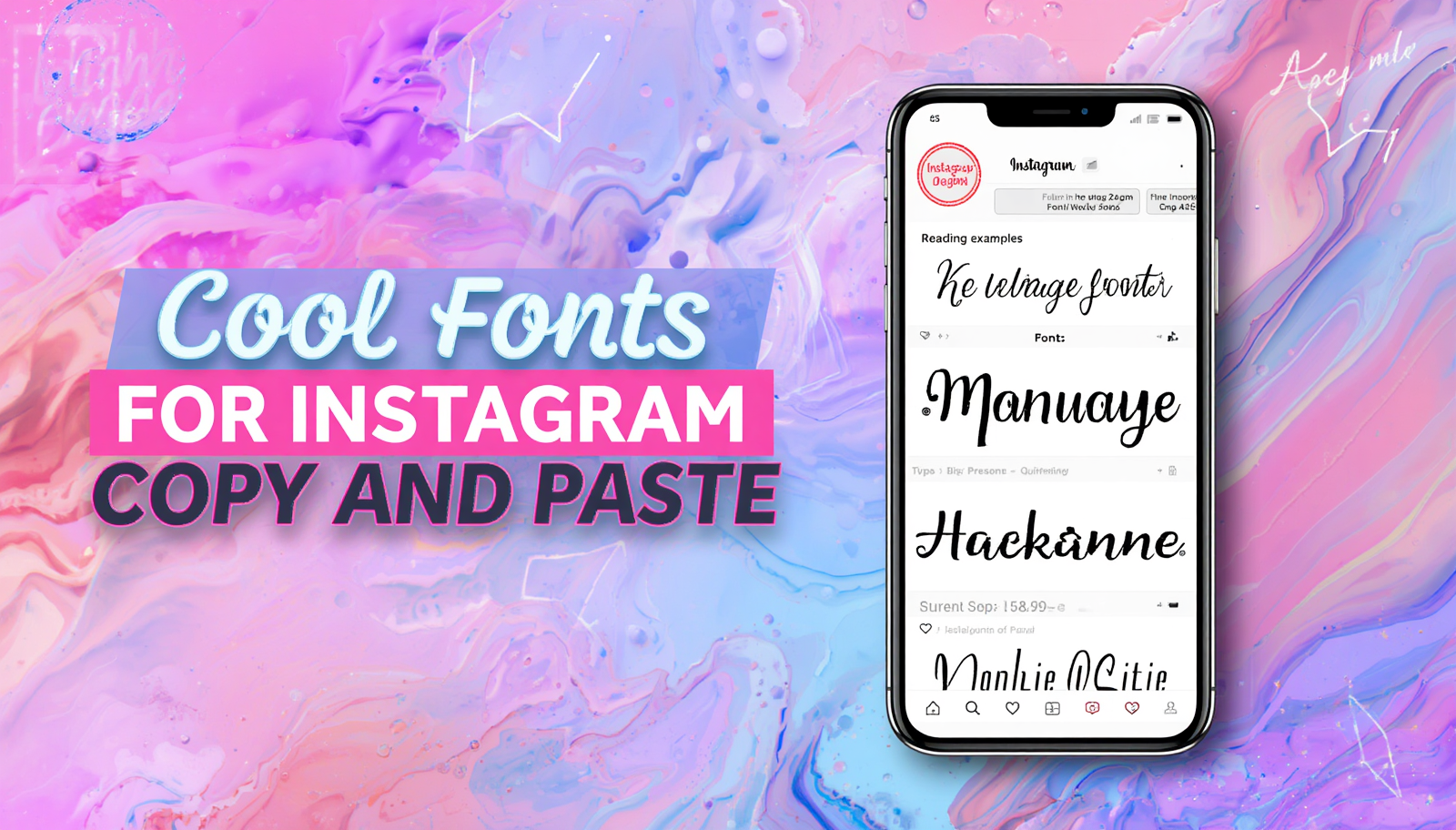
Cool Fonts for Instagram Copy and Paste (100+ Stylish Fonts)
Cool Fonts for Instagram Copy and Paste are one of the easiest ways to make your Instagram profile stand out. Whether you want a stylish Instagram bio, a unique username, or eye-catching captions, cool fonts can help you create a more attractive profile.
Instagram is one of the most popular social media platforms in the world. Millions of users compete for attention every day. Using stylish text can make your profile look more creative and professional without requiring any special design skills.
With a Cool Font Generator, you can instantly convert normal text into stylish font styles that can be copied and pasted directly into Instagram. These fonts work for usernames, bios, captions, comments, and even story text.
If you are looking for the best cool fonts for Instagram copy and paste, this guide will show you how they work, where to use them, and provide plenty of examples.
What Are Cool Fonts for Instagram?
Cool fonts are special Unicode characters that look different from normal text. Instead of changing the actual Instagram font, they create stylish text styles that can be copied and pasted into your profile.
For example:
Normal Text:
Instagram
Cool Font Styles:
- ๐๐ท๐ผ๐ฝ๐ช๐ฐ๐ป๐ช๐ถ
- ๐ด๐๐๐๐๐๐๐๐
- ๐๐ง๐ฌ๐ญ๐๐ ๐ซ๐๐ฆ
- ๐๐ฏ๐ด๐ต๐ข๐จ๐ณ๐ข๐ฎ
- ๐ ธ๐ ฝ๐๐๐ ฐ๐ ถ๐๐ ฐ๐ ผ
These styles make your content more noticeable and visually appealing.
Why Use Cool Fonts on Instagram?
There are many benefits to using cool fonts on Instagram.
Better Profile Appearance
Stylish fonts make your profile look modern and attractive.
Stronger Personal Branding
Influencers and content creators often use custom fonts to create a recognizable identity.
More Attention
Unique text naturally attracts attention and can encourage users to visit your profile.
Creative Expression
Fonts allow you to express your personality and style.
Popular Cool Fonts for Instagram Copy and Paste
Here are some examples you can use immediately.
Stylish Script Fonts
- ๐ ๐๐ธ๐ฟ๐ฎ ๐๐ท๐ผ๐ฝ๐ช๐ฐ๐ป๐ช๐ถ
- ๐ข๐ฝ๐๐ต๐ฒ๐ผ๐ฑ ๐๐ฒ๐ธ
- ๐๐ธ๐ธ๐ต ๐๐ธ๐ท๐ฝ๐ผ
Bold Fonts
- ๐๐ง๐ฌ๐ญ๐๐ ๐ซ๐๐ฆ
- ๐๐ญ๐ฒ๐ฅ๐ข๐ฌ๐ก ๐๐๐ฑ๐ญ
- ๐๐จ๐จ๐ฅ ๐ ๐จ๐ง๐ญ๐ฌ
Gothic Fonts
- ๐ด๐๐๐๐๐๐๐๐
- ๐ฎ๐๐๐ ๐ฑ๐๐๐๐
- ๐พ๐๐๐๐๐๐ ๐ฟ๐๐๐
Bubble Fonts
- โโโขโฃโโโกโโ
- โขโฃโจโโโขโ
- โโโโฃโข
Square Fonts
- ๐ ธ๐ ฝ๐๐๐ ฐ๐ ถ๐๐ ฐ๐ ผ
- ๐๐๐๐ ป๐ ธ๐๐ ท
- ๐ ต๐ พ๐ ฝ๐๐
Cool Fonts for Instagram Bio
Your bio is one of the best places to use stylish fonts.
Examples:
- โจ Dream Big โจ
- ๐ Travel Lover
- ๐ธ Content Creator
- ๐ก Digital Marketer
- ๐ Building My Brand
When combined with cool fonts, these bios become more attractive and memorable.
Cool Fonts for Instagram Usernames
Many Instagram users use cool fonts to create unique usernames.
Examples:
- ๐๐ต๐ฒ
- ๐ฌ๐๐๐๐
- ๐๐๐ซ๐
- ๐๐๐ผ๐ฑ๐ช
- ๐ ฐ๐ ป๐ ธ
A creative username can make your profile stand out from millions of accounts.
How to Use Cool Fonts for Instagram Copy and Paste
Using cool fonts is very simple.
You can use it in:
- Usernames
- Bios
- Captions
- Comments
- Stories
Best Places to Use Cool Fonts
Instagram Bio
Improve your profile appearance.
Instagram Username
Create a unique identity.
Instagram Captions
Make posts more engaging.
Instagram Stories
Add creative text to stories.
Instagram Comments
Stand out in conversations.
Tips for Choosing the Right Font
- Keep it readable
- Avoid overusing decorative symbols
- Match your personal brand
- Use consistent styles
- Test on mobile devices
The best cool fonts balance creativity and readability.
Common Mistakes to Avoid
Using Hard-to-Read Fonts
Some decorative fonts may be difficult to understand.
Mixing Too Many Styles
Keep your profile design consistent.
Overusing Symbols
Too many symbols can look unprofessional.
Copying Other Profiles
Create your own unique identity.
Are Cool Fonts Safe for Instagram?
Yes. Cool fonts use Unicode characters that are supported across most modern devices and social media platforms.